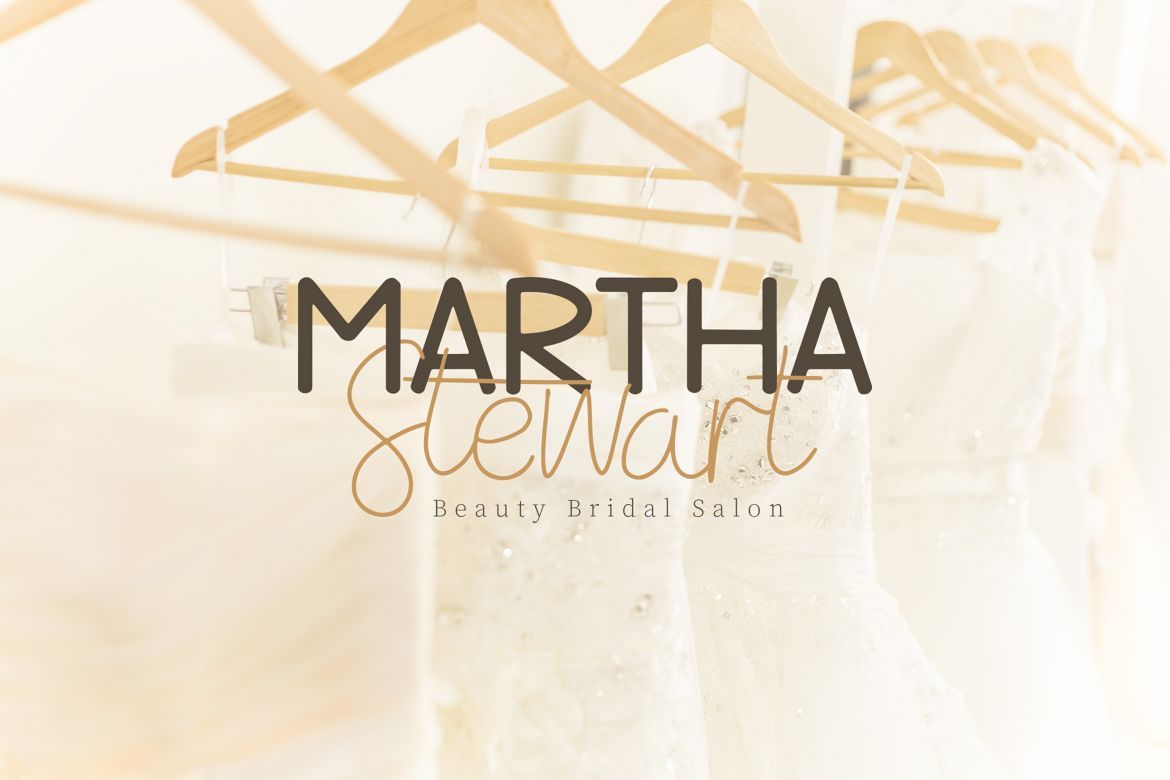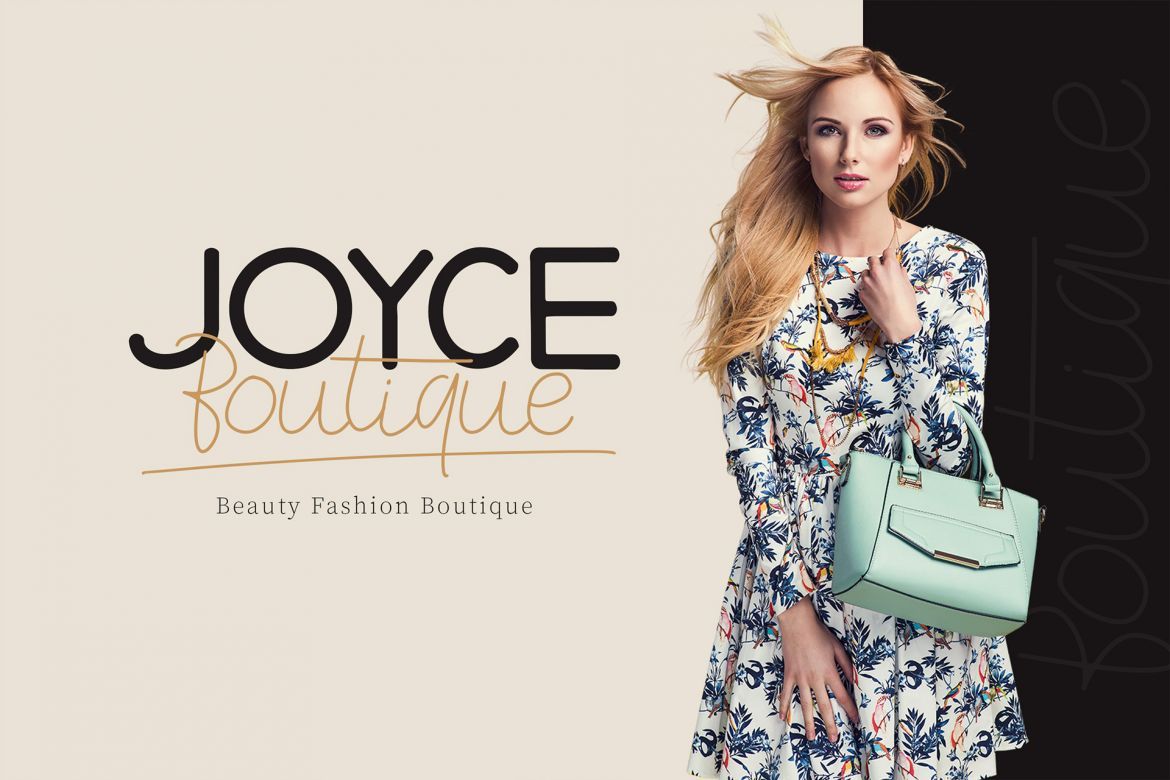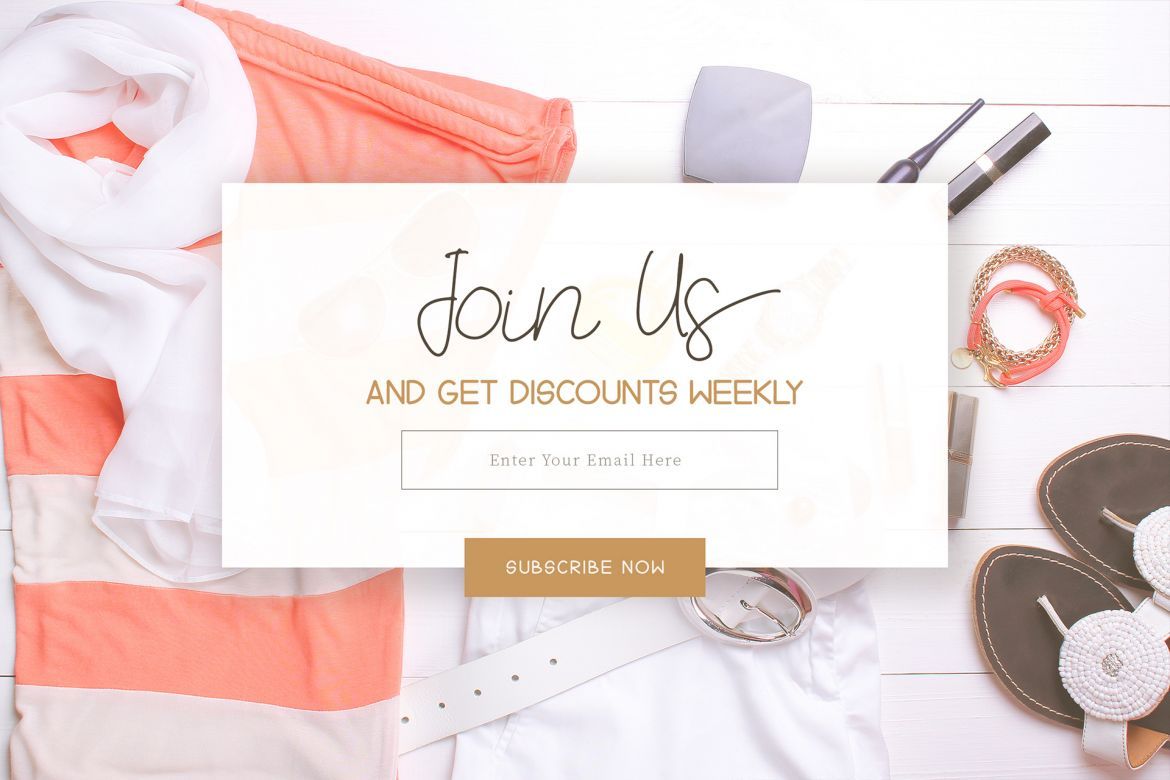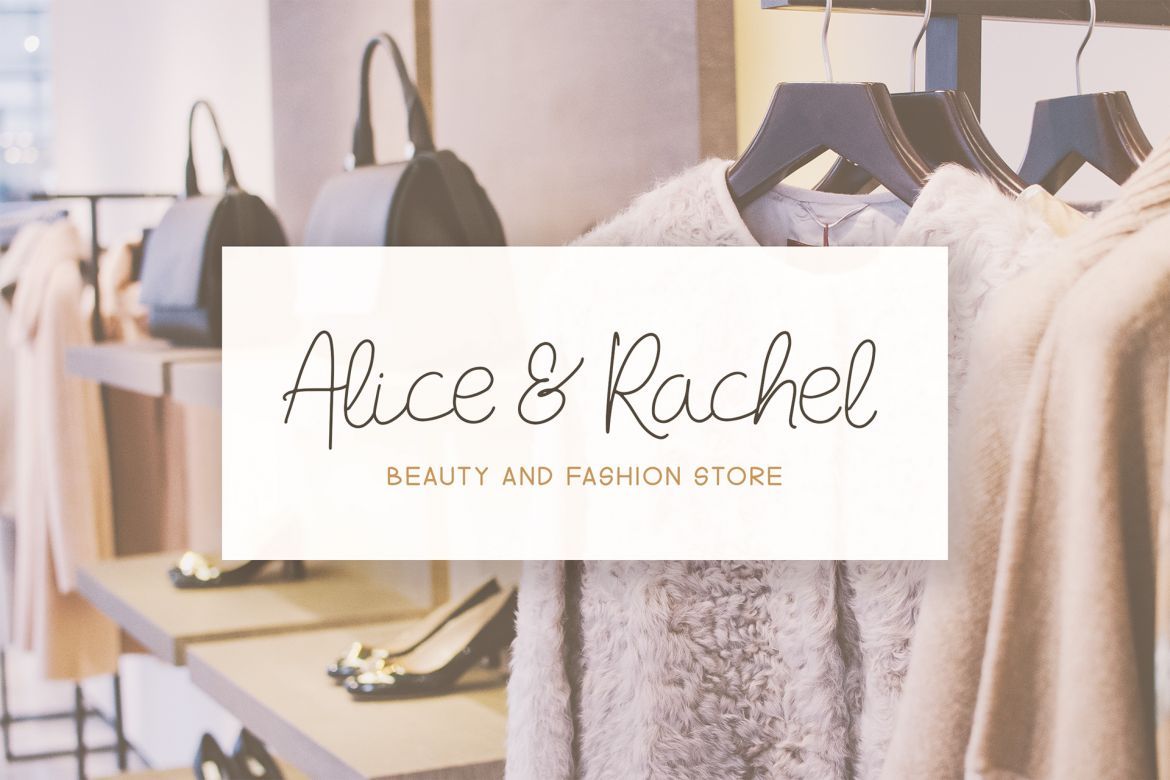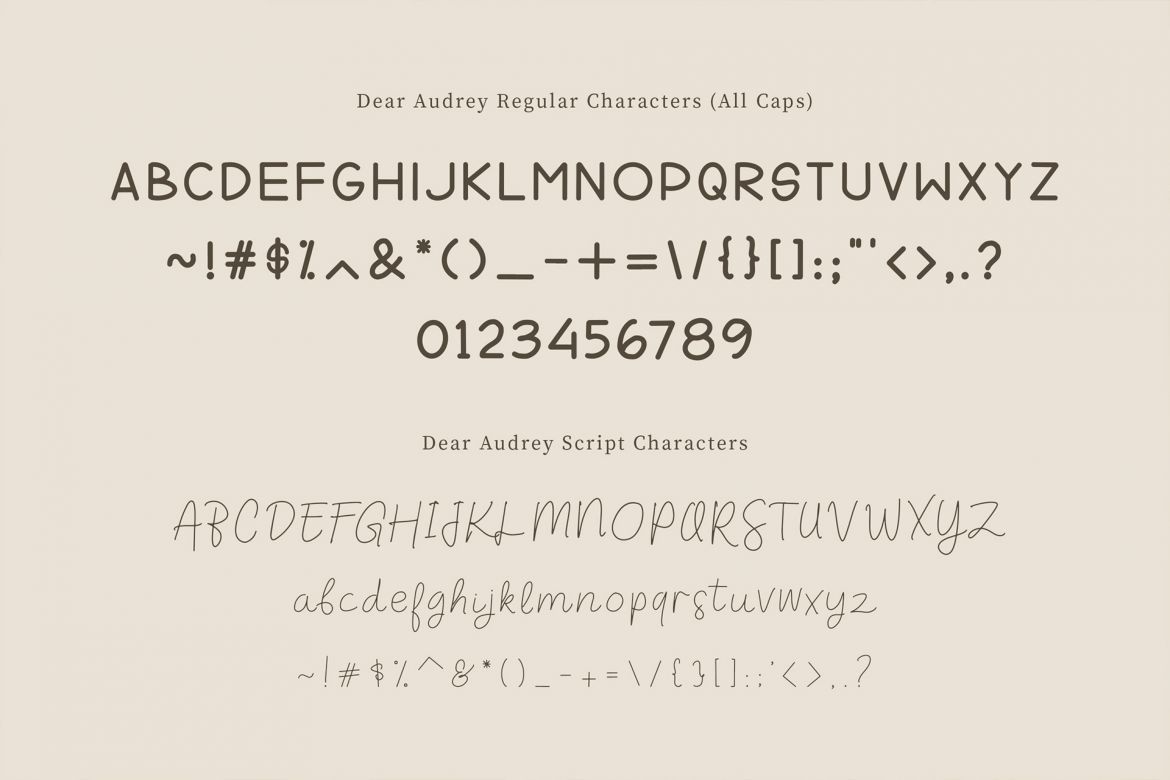
Dear Audrey - Font Duo
A perfect handwritten font duo font with a unique and elegant feel united into one. DearAudrey is perfect for branding projects such as logo, presentation, and product packaging. It’s also perfect for wedding and fashion themed or a stylish text overlay to any background image.
• dearaudrey extras - a set of 16 hand-drawn swashes
• dearaudrey regular - font type with sans character
• dearaudrey script - font type calligraphy or a signature style